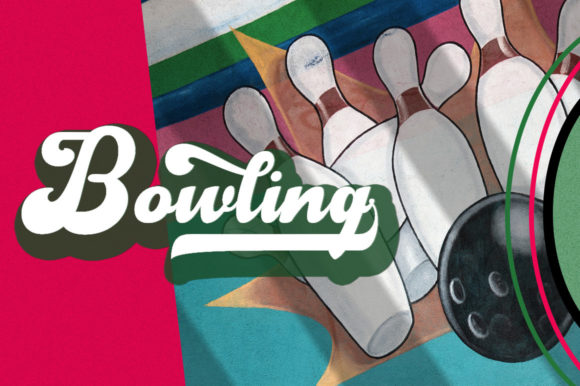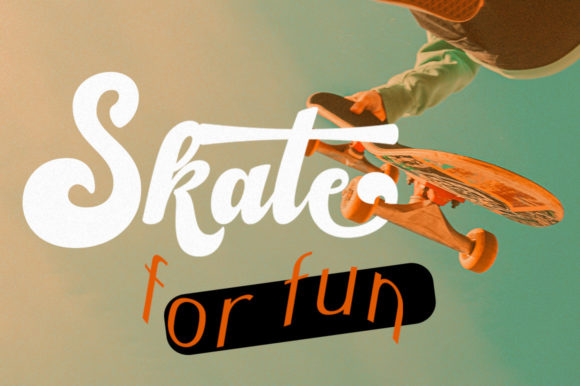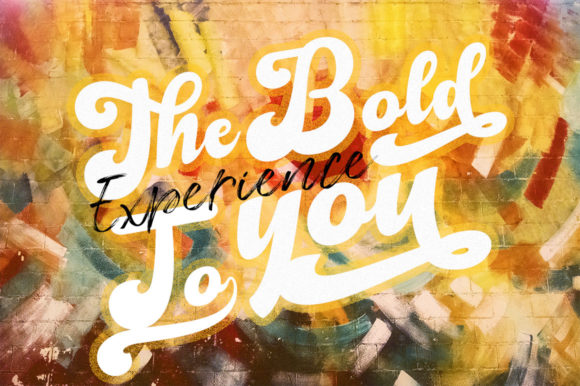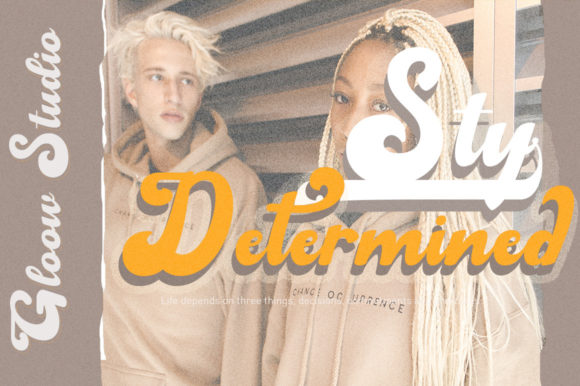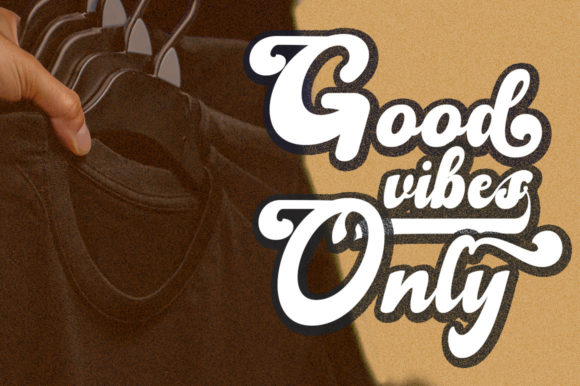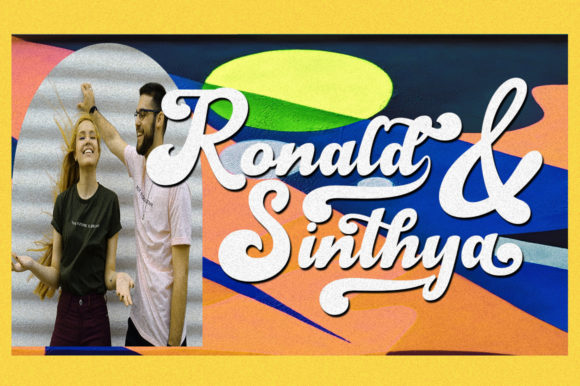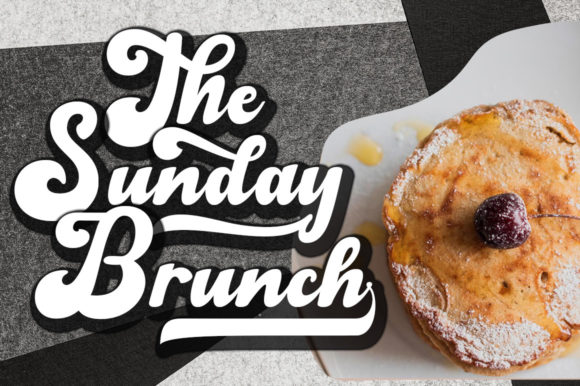
Anthela Font
About Anthela Font
Anthela is a gorgeous and bold handwritten font, crafted to give your headlines and logotype projects a retro touch. This font is PUA encoded which means you can access all glyphs and swashes with ease!